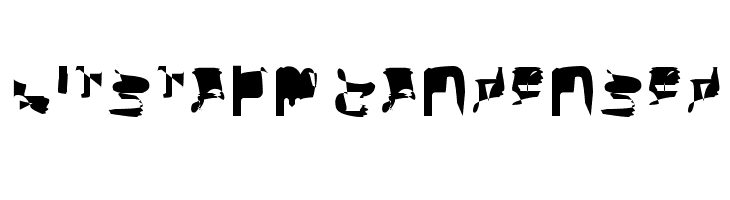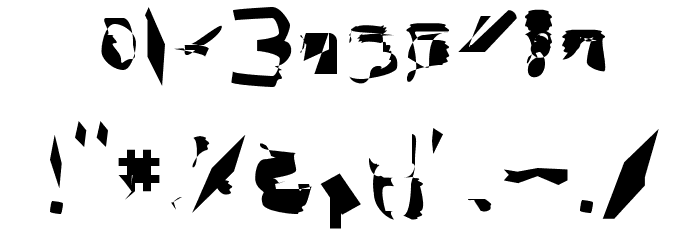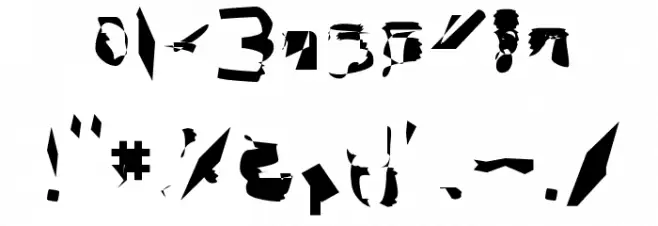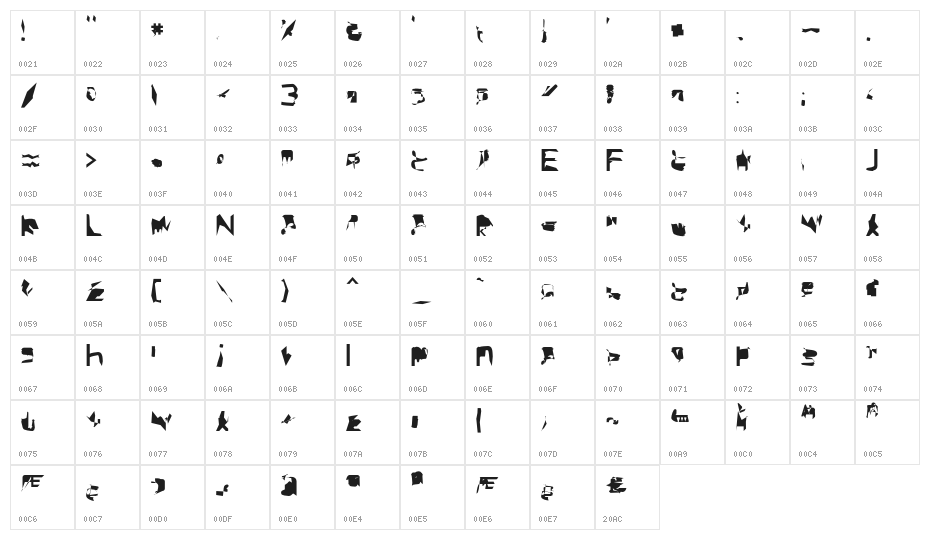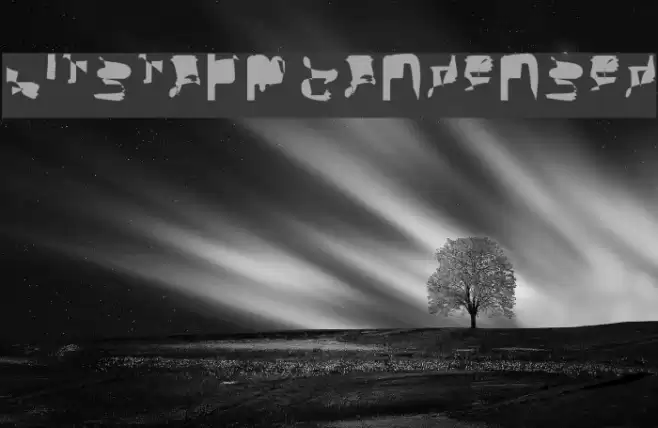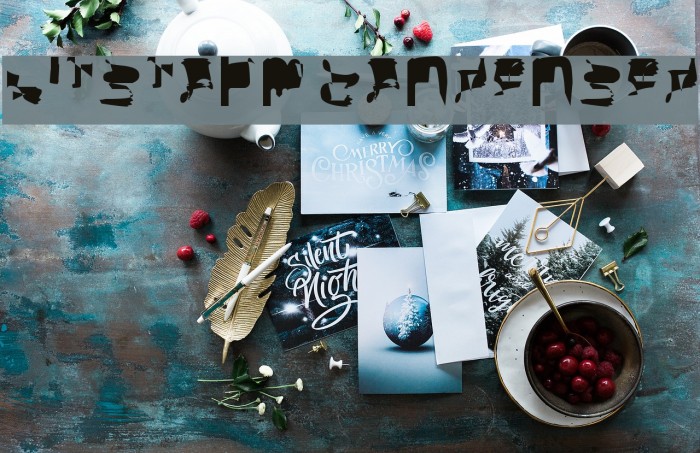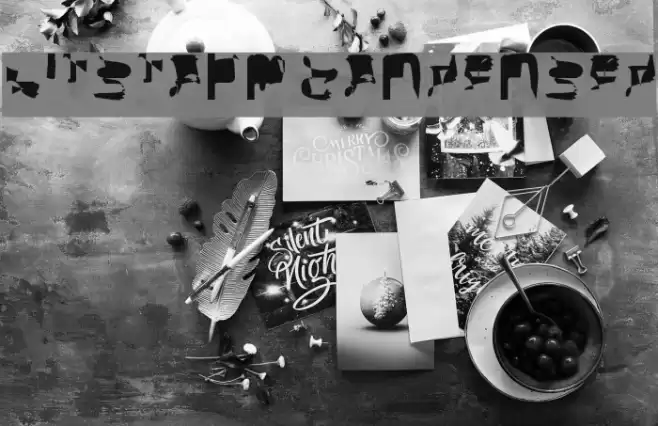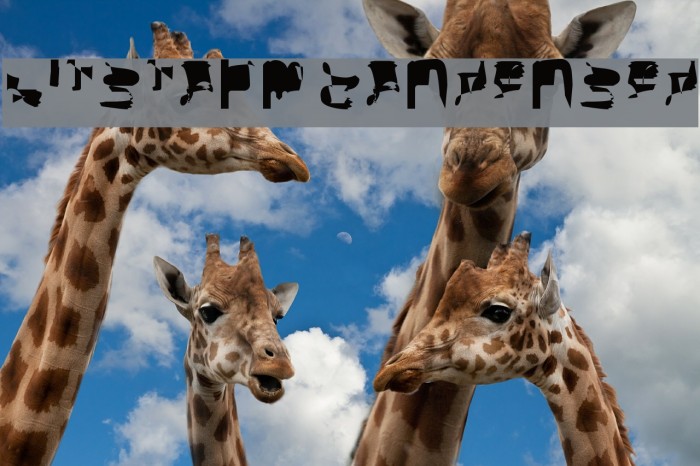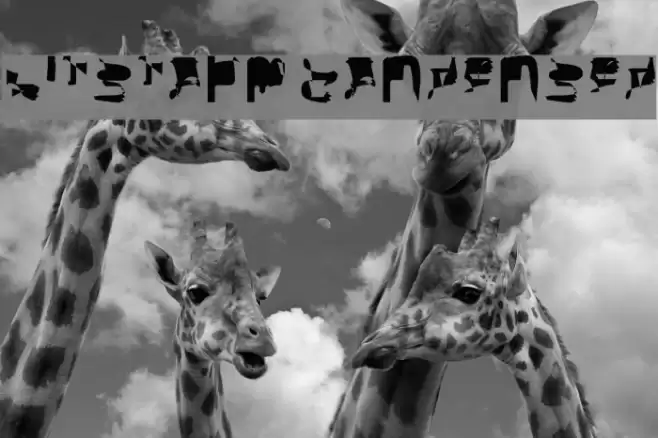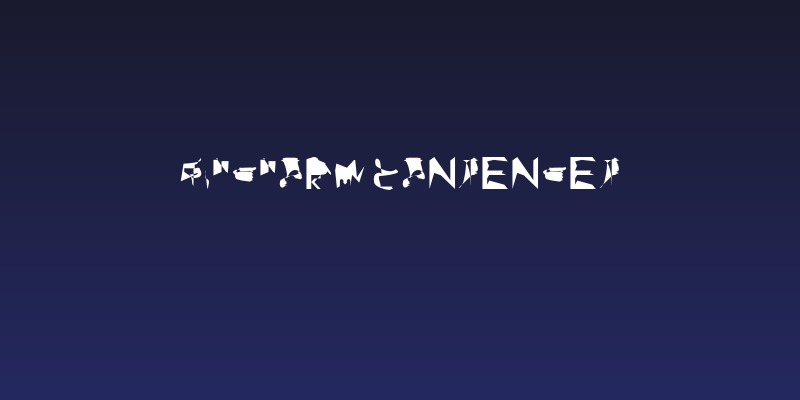
bitstorm condensed Font
bitstorm condensed Description
This font features a highly abstract and fragmented design, characterized by its sharp, angular shapes and irregular forms. The letters appear as if they have been shattered or eroded, creating a chaotic yet intriguing visual effect. The style is bold and impactful, making it suitable for attention-grabbing designs. The uppercase and lowercase letters maintain a consistent level of distortion, while the numbers and special characters follow the same fragmented aesthetic. This font is ideal for projects that require a modern, edgy look with a touch of artistic flair.